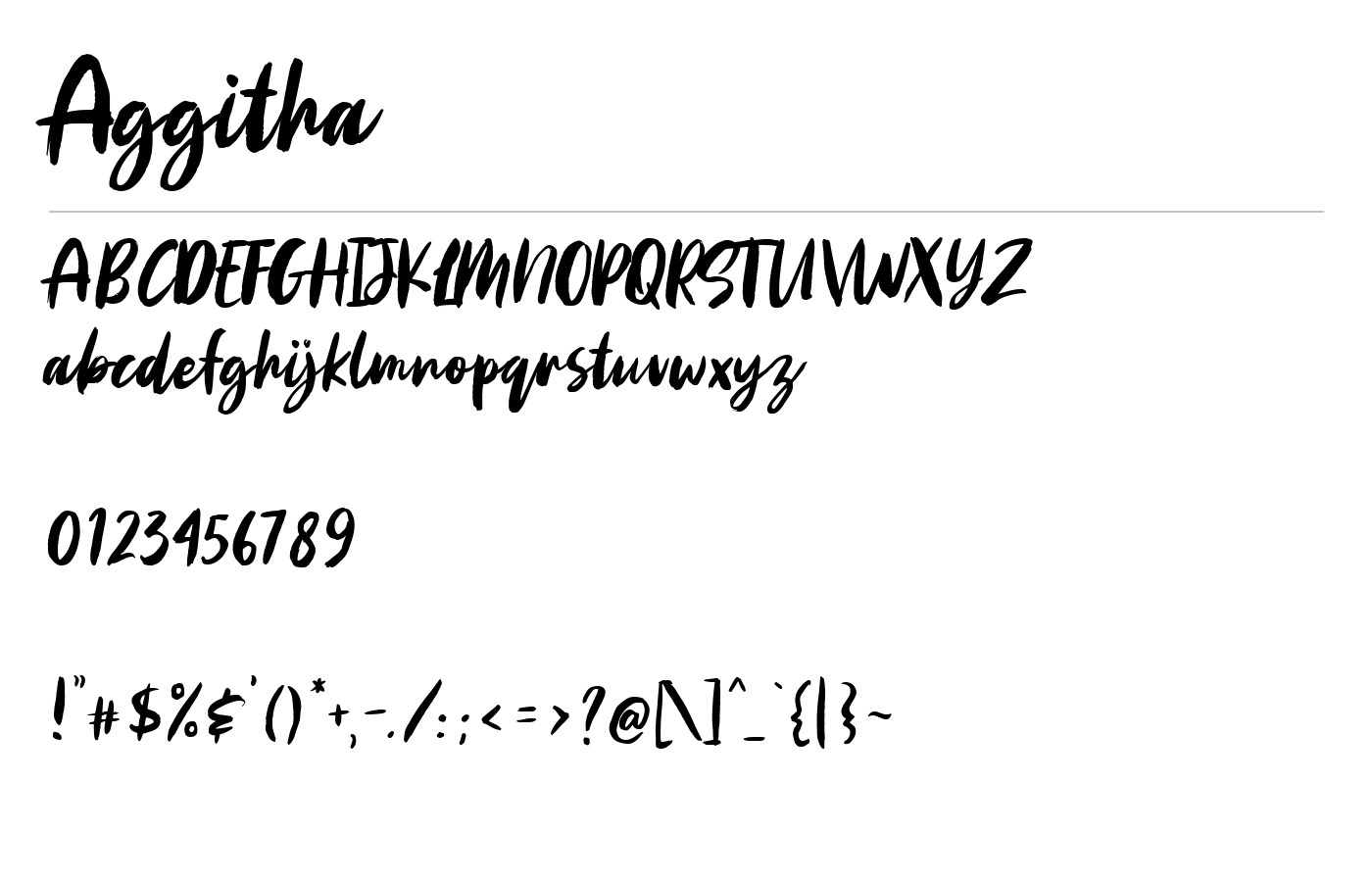
Aggitha is a lively and bold script font that mimics the natural flow of hand-painted brush strokes, offering a casual yet confident style. Its moderately condensed letterforms and uneven edges create a dynamic, artistic feel, perfect for creative branding, informal invitations, and eye-catching headlines that want to convey personality and warmth. This font works well in projects that seek a personal touch with a contemporary brush script flair.
Aggitha Font
About Aggitha Font
| Font family | Aggitha Font |
| Designer | Weape Studio |